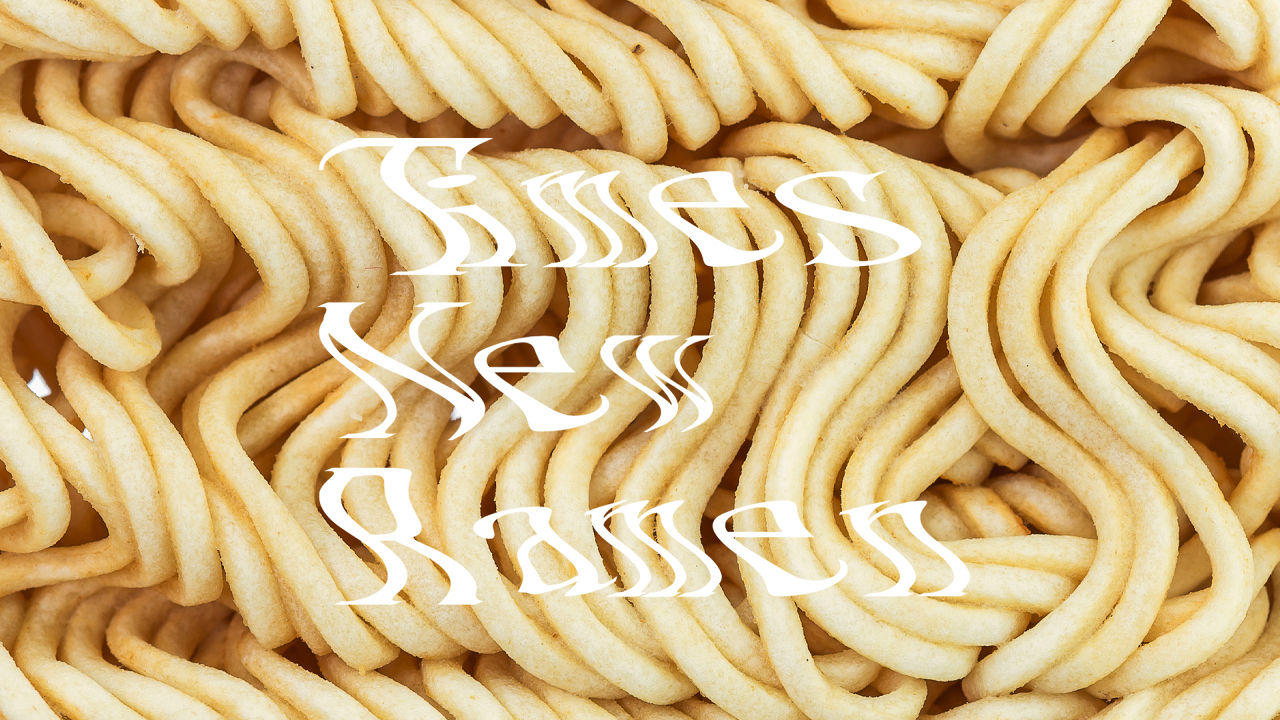
Ryder Ripps on the font’s noodly genesis, its surprise endorsement by Kendrick Lamar, and why it will change the type world forever.
Times New Ramen is a new font by the perpetually tongue-in-cheek designer Ryder Ripps, creative director of the progressive brand marketing agency OKFocus and New York Times profiled net artist: a goofy Twitter joke turned into a nigh-illegible typeface that you can actually download. The website claims that the weird font was “endorsed” by
Kendrick Lamar, the rapper behind March’s To Pimp A Butterfly, so we decided to reach out to Ripps to ask some questions about the genesis of his noodly new font and whether Lamar was really as much of a typography lover as it seemed. Without further commentary, here’s what Ripps had to say:
Co.Design: Where’d the idea for Times New Ramen come from?
I wrote a tweet that said this:
I originally conceived of this tweet years ago when I used to race Formula 1 for Halliburton, I would often read the Financial Times over a bowl of hot Ramen when I would race in Naha, Okinawa visiting my dear friend Felix Rohatyn.
What was the design process like?
I believe that the best way to get something done is to involve as many people as possible. So we hired several of the most cutting edge agencies to help out including BBDO, DDB, Huge, Crispy Potter, KFC and Mother.
Q: Is that Kendrick Lamar quote real? How’d you get it?
I don’t understand the question.
Obviously, Times New Ramen is a gag font, but can you see it being used in the real world? (Outside of ramen joints, that is)
Gag font? That’s what they said about the original Times New Roman font when it came out in 1931. Everyone was like, this is neither Roman nor New. I just think as a society we need to become more open to change. In the words of the great Steve Jobs, “Innovation distinguishes between a leader and a follower.” And in the words of Margaret Thatcher, “Oh my God, oh my God, If I die, I’m a legend. Oh my God, oh my God, if I die, I’m a legend.”